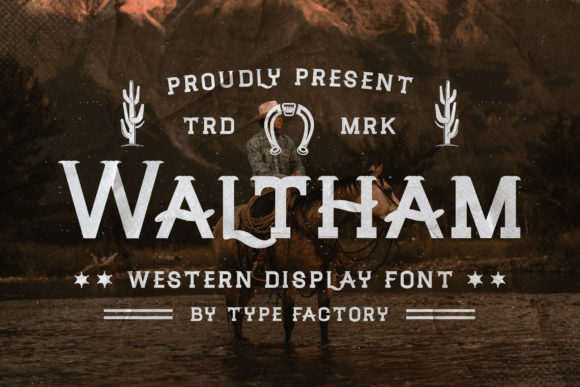
Introducing Waltham Font, the serif font that's the perfect blend of classic and contemporary. It's got character, it's got style, and it's got the power to transform your designs into works of art.
With its strong serifs and elegant curves, Waltham Font is perfect for display text, children's games, quotes, titles, brand names, and more. It's also great for posters, book covers, and any other project that needs a touch of beauty.
Whether you're working on a retro or grunge design, Waltham Font is the perfect choice. Its western-inspired look will add a touch of nostalgia to your work, while its modern aesthetic will keep it looking fresh and contemporary.
Step into a world of boundless creativity with Waltham Font. Its versatility knows no bounds, allowing you to craft designs that are as unique and captivating as your imagination. From playful children's games to striking posters, from elegant book covers to bold brand names, Waltham Font is your go-to font for leaving a lasting impression.
So why wait? Unleash the power of Waltham Font today and embark on a journey of creative expression like never before. Let your designs shine with a font that speaks volumes, a font that captivates hearts, and a font that turns heads.
Dive into the world of Waltham Font and let your creativity soar. With its timeless appeal, this font will elevate your designs to new heights, leaving a lasting impression that resonates with your audience. Let Waltham Font be your creative companion, your font of choice, and your secret weapon for design success.